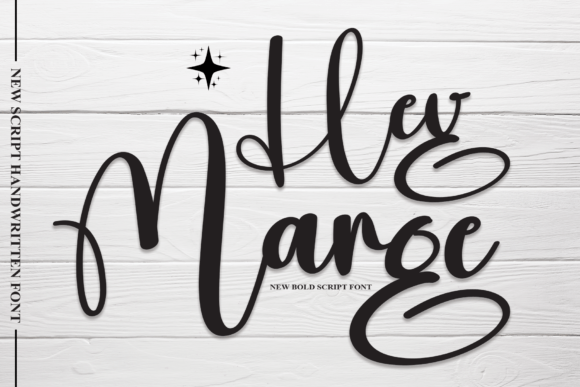
Introducing Hey Marge Font, a bold and thick script font that will add a touch of fun and playfulness to your designs. Created by the talented andikastudio, this chubby font is perfect for branding, packaging, and any project that needs a creative and eye-catching touch.
With its bold strokes and thick lines, Hey Marge Font is sure to make a statement. This font is perfect for creating logos, posters, social media graphics, and more. It's also great for branding projects, as it will help your brand stand out from the competition.
But Hey Marge Font isn't just bold and thick—it's also incredibly versatile. You can use it for a variety of projects, from playful and whimsical designs to more serious and sophisticated ones. The possibilities are endless!
So if you're looking for a font that will add a touch of fun and creativity to your designs, look no further than Hey Marge Font. This unique and eye-catching font is sure to make your projects stand out from the rest.